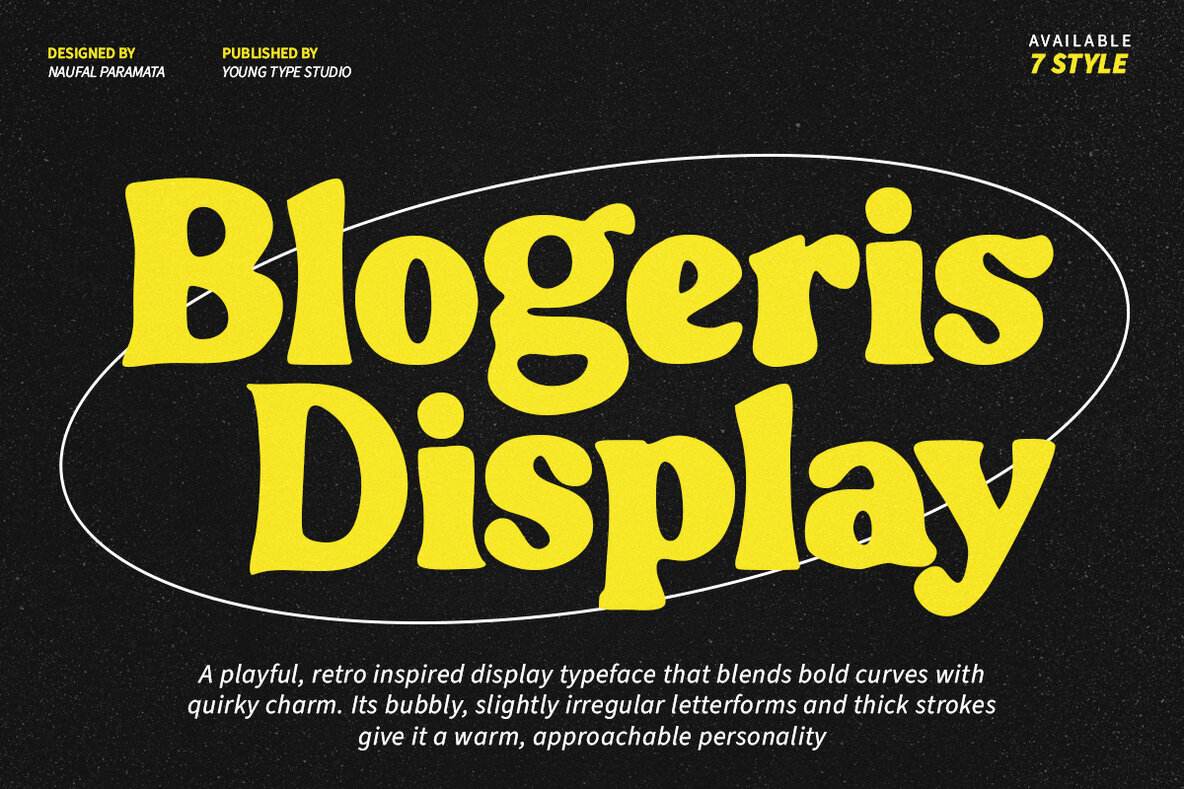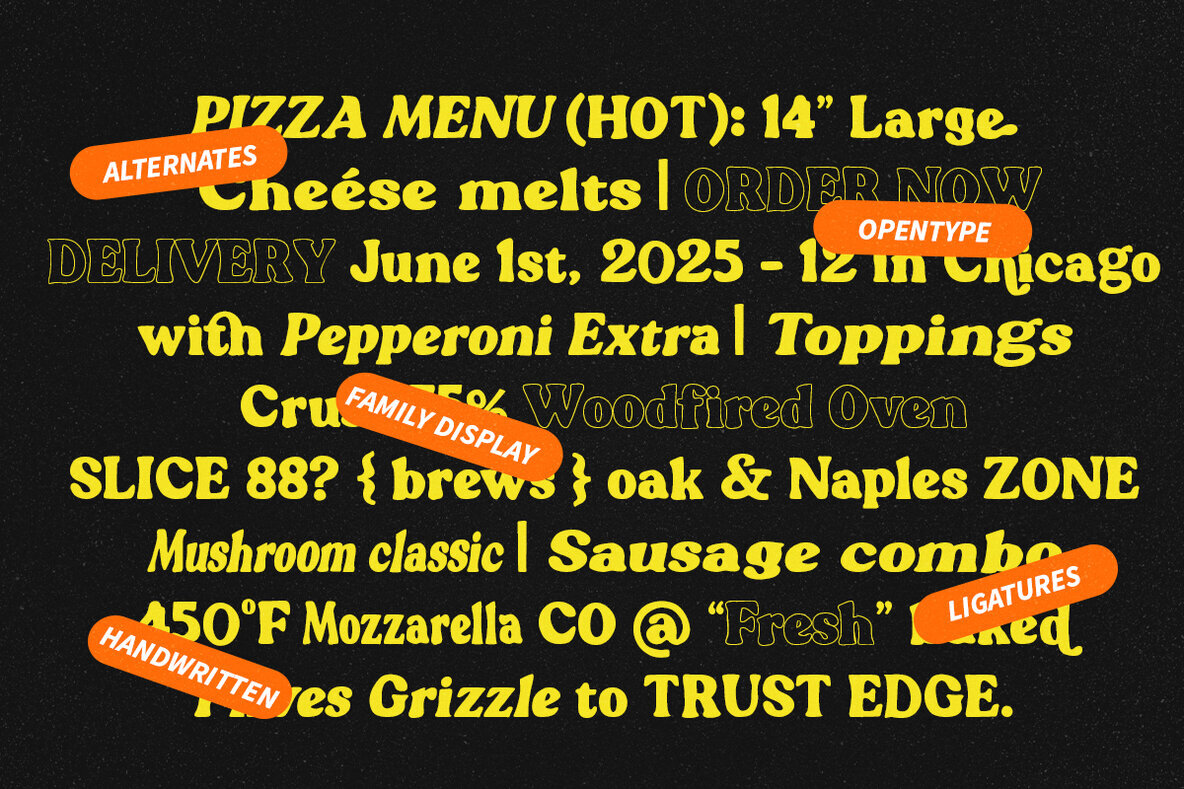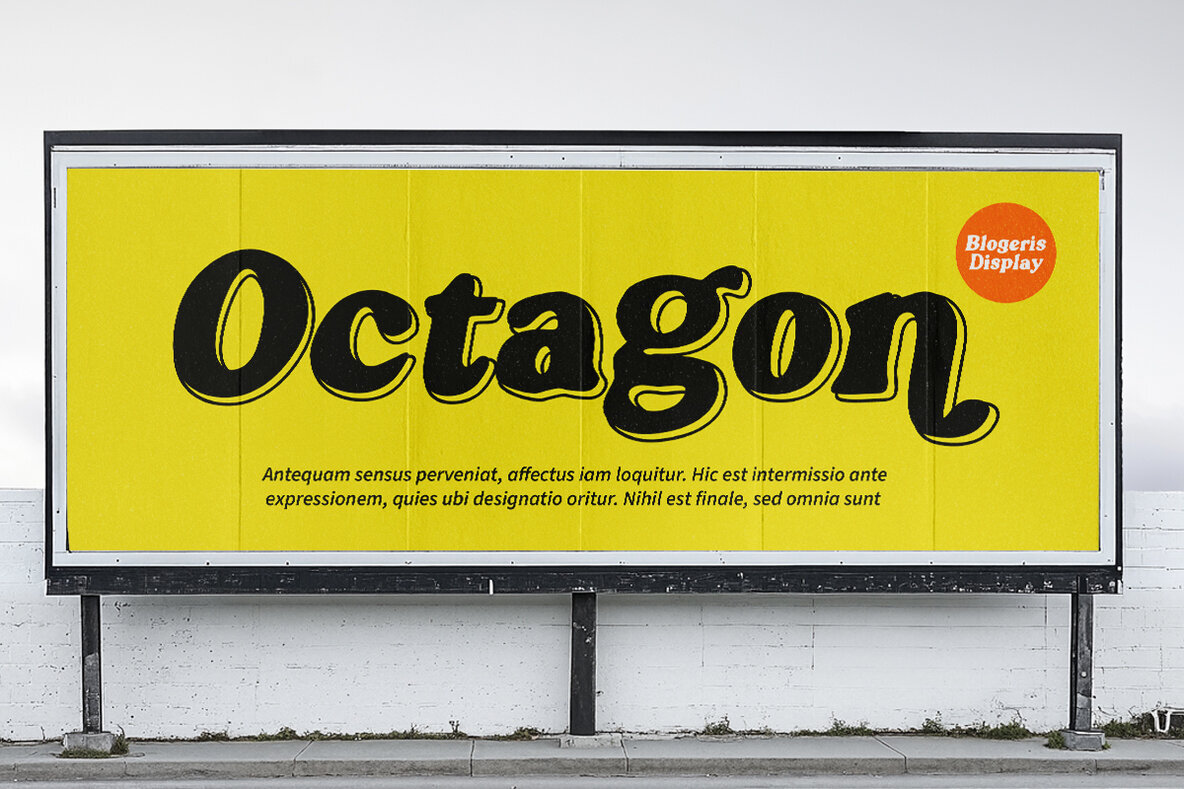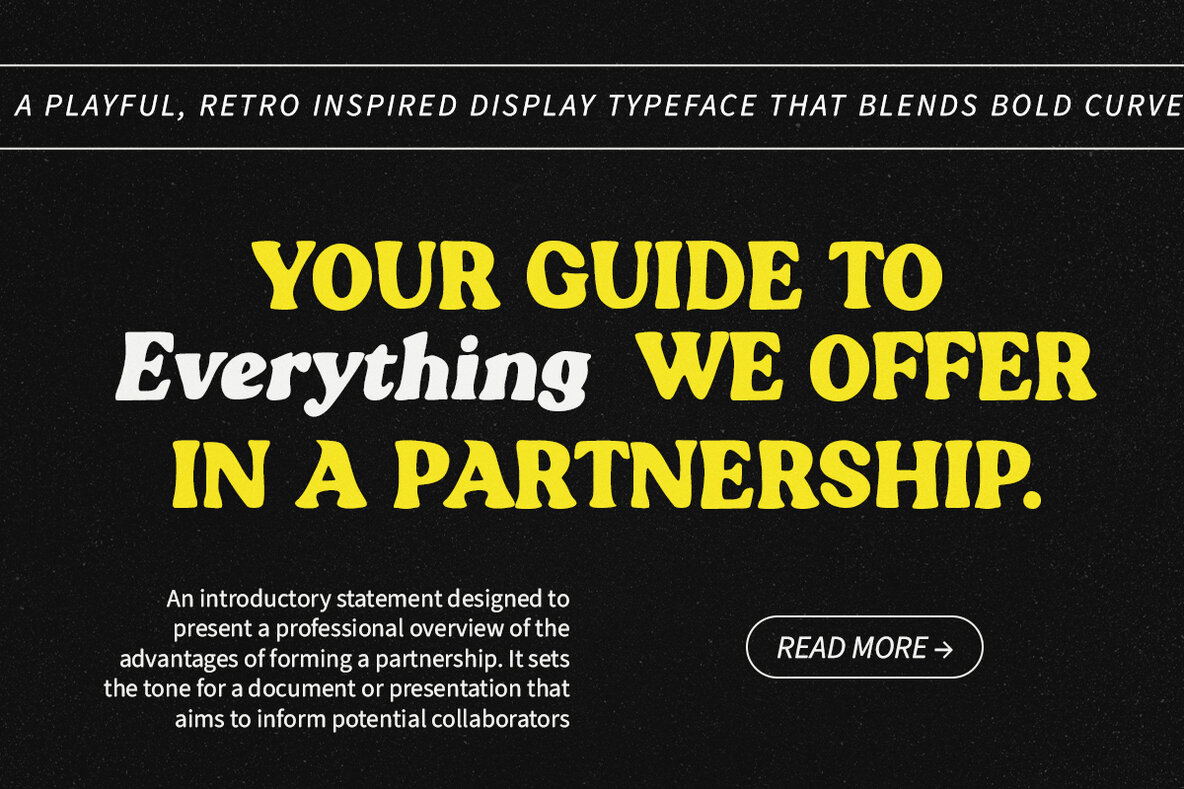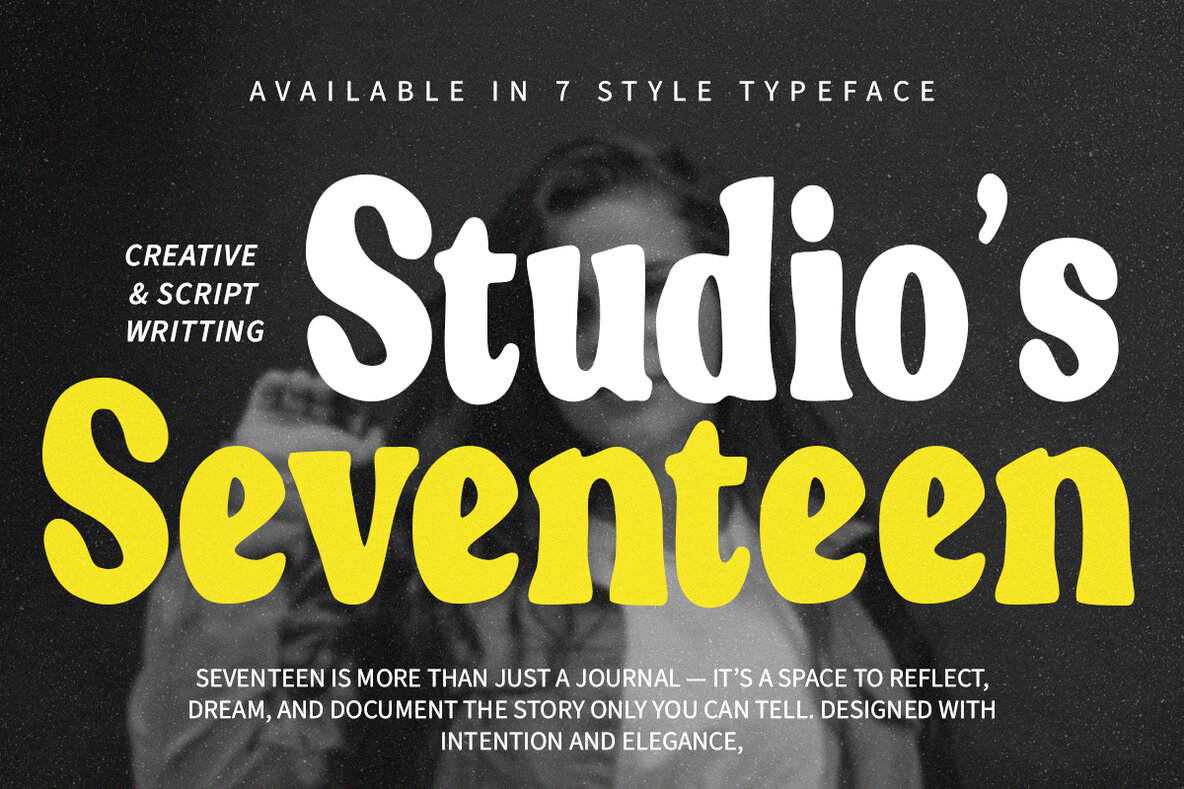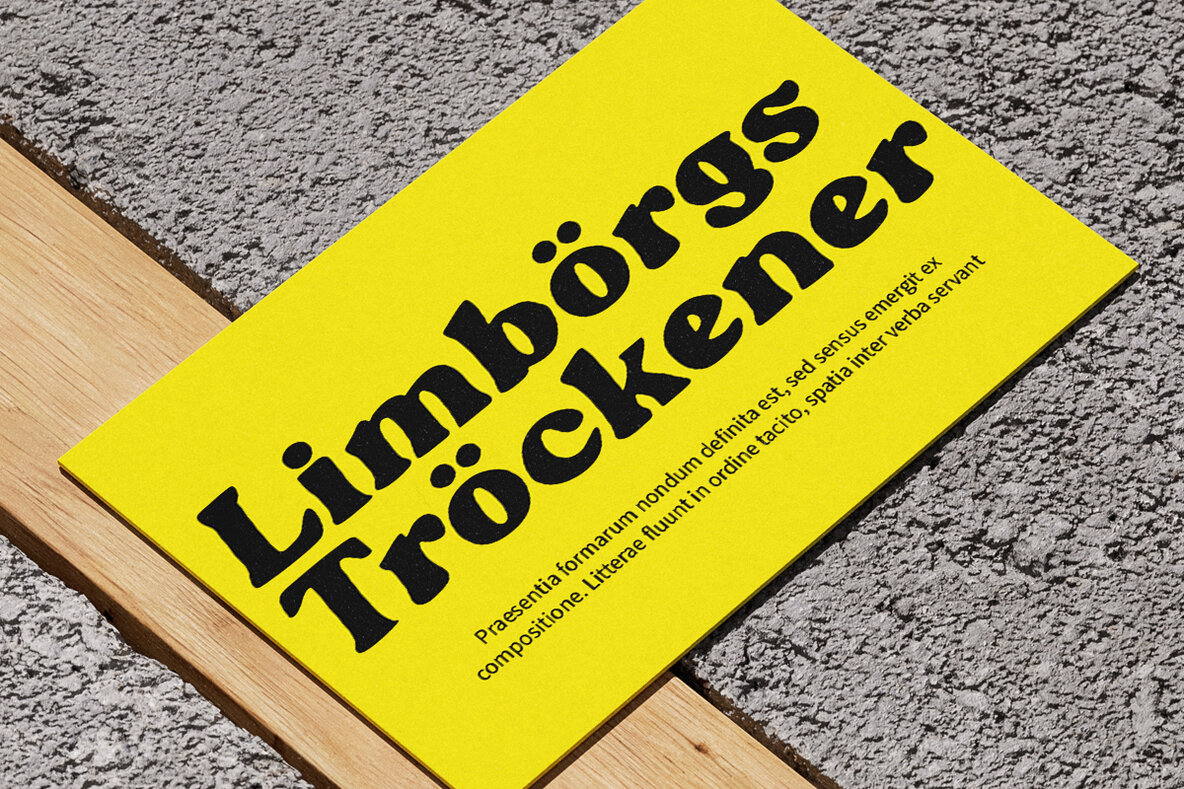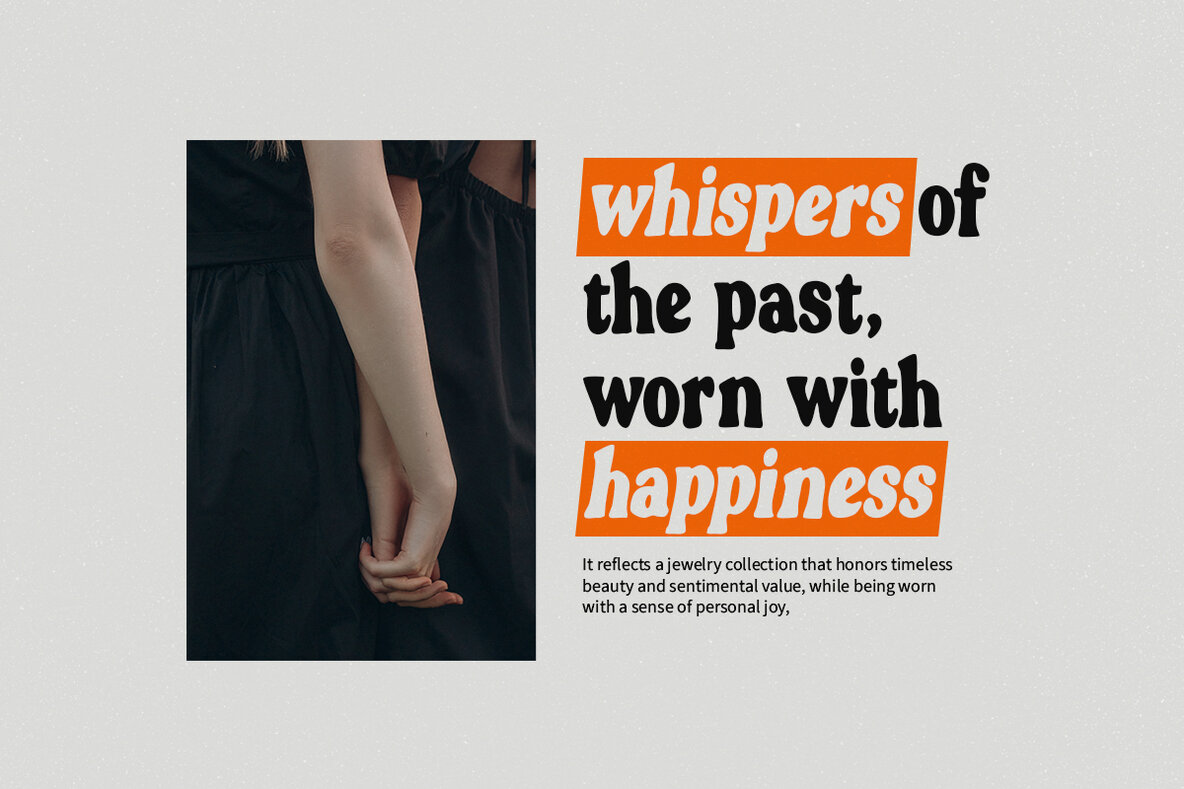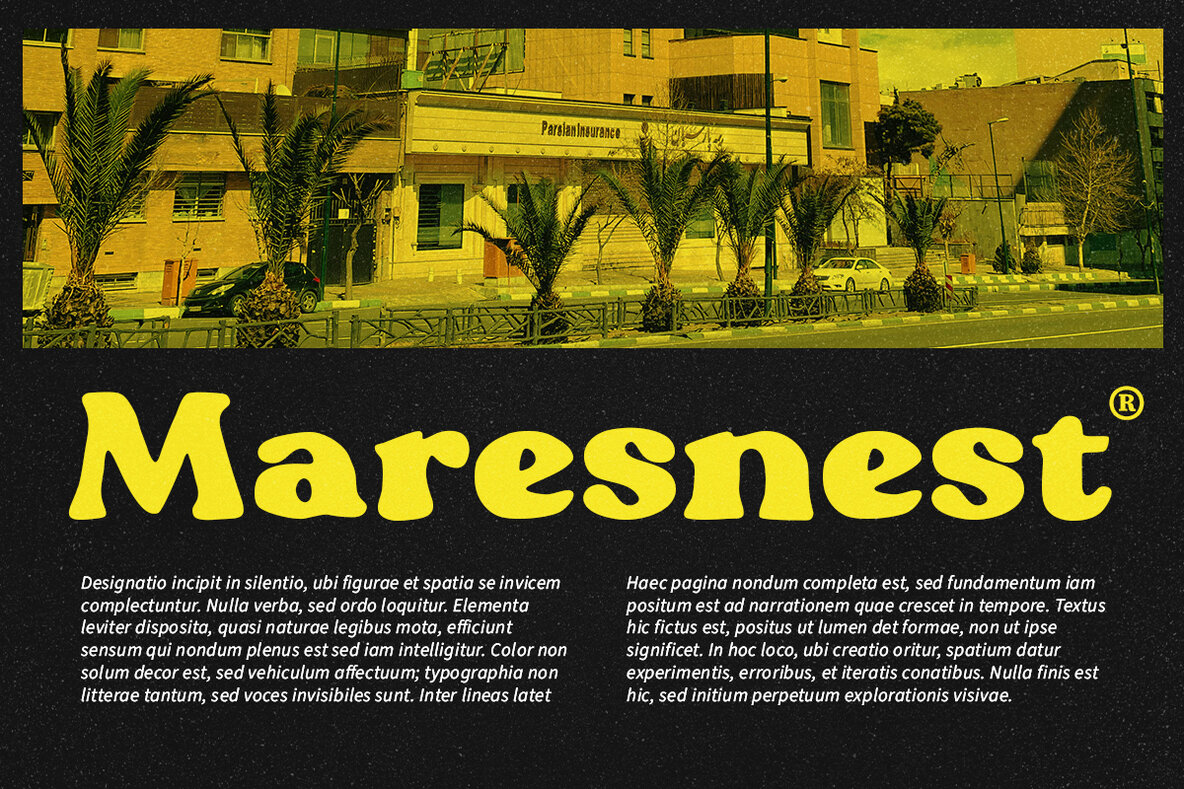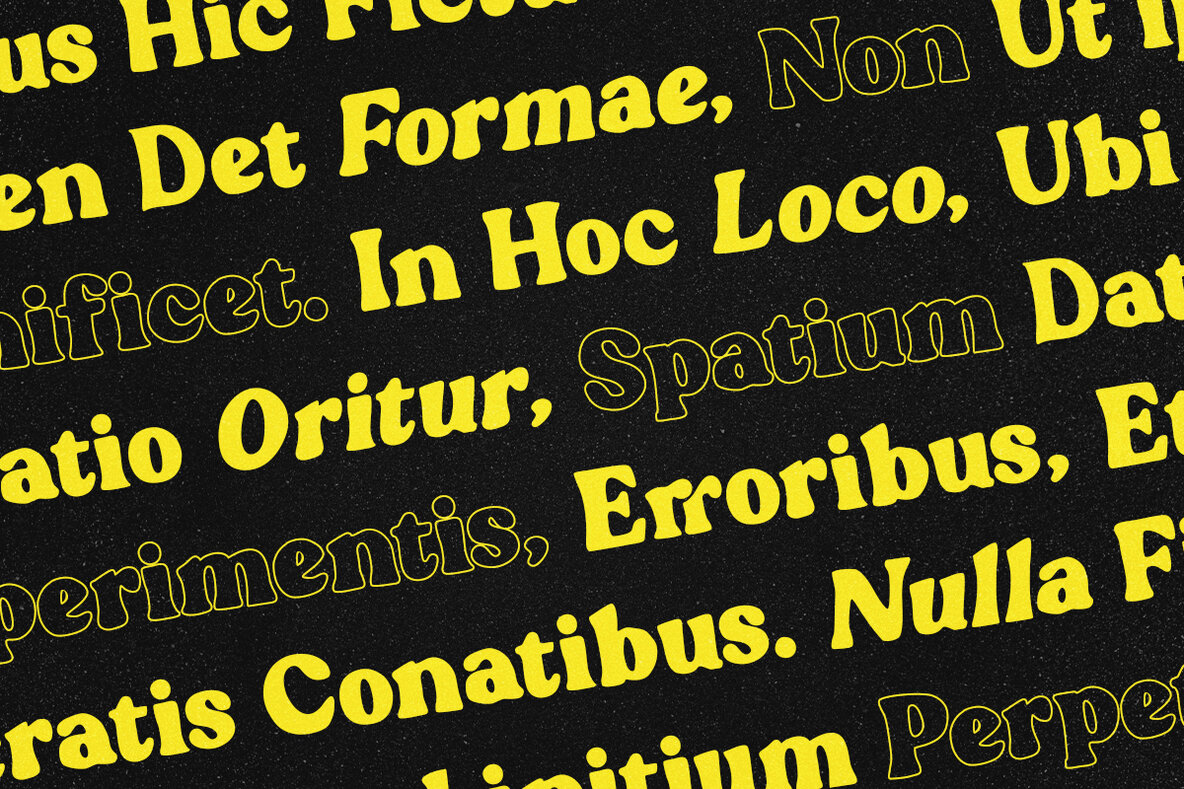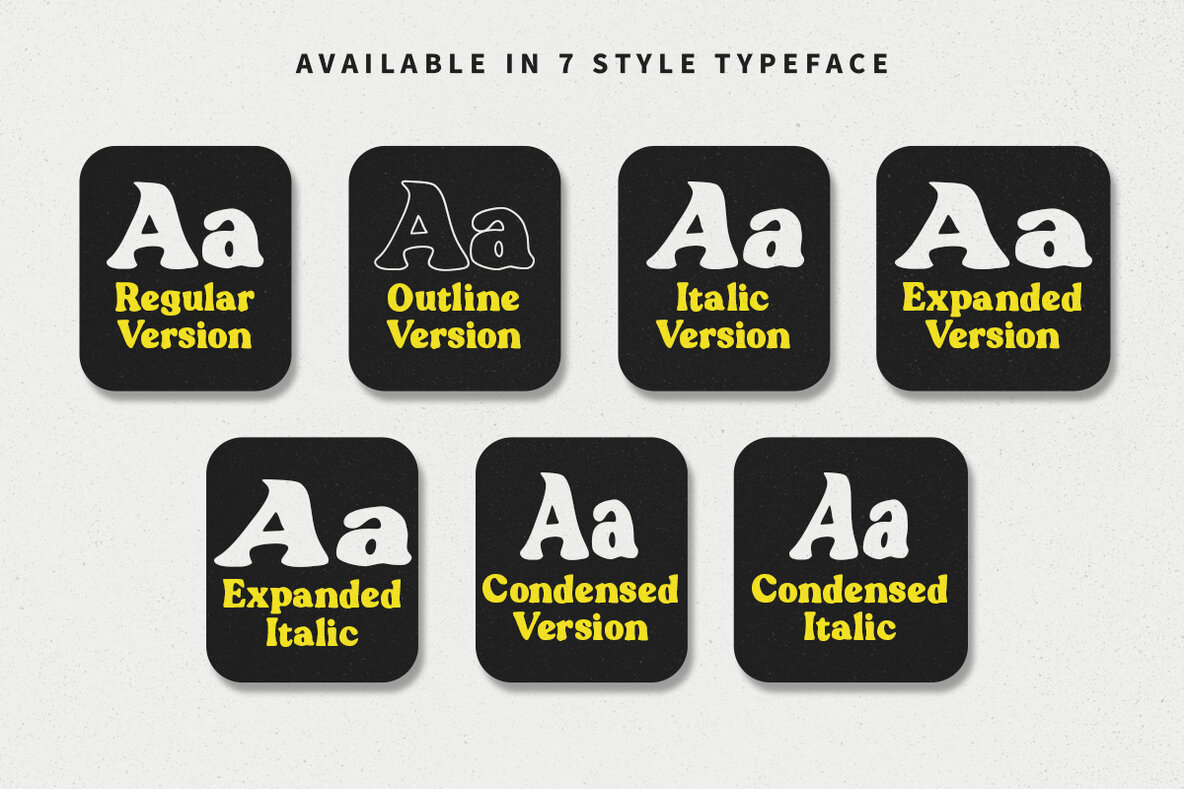
Blogeris Font
Blogeris Display, a playful and retro-inspired display typeface, brings bold curves coupled with quirky charm to your designs. Featuring bubbly and slightly irregular letterforms, it offers a handcrafted, organic feel that introduces warmth and personality into every project. Crafted with thick strokes and a distinctive rhythm, Blogeris Display is perfect for headlines, posters, branding, and other creative ventures.Blogeris Display Typeface